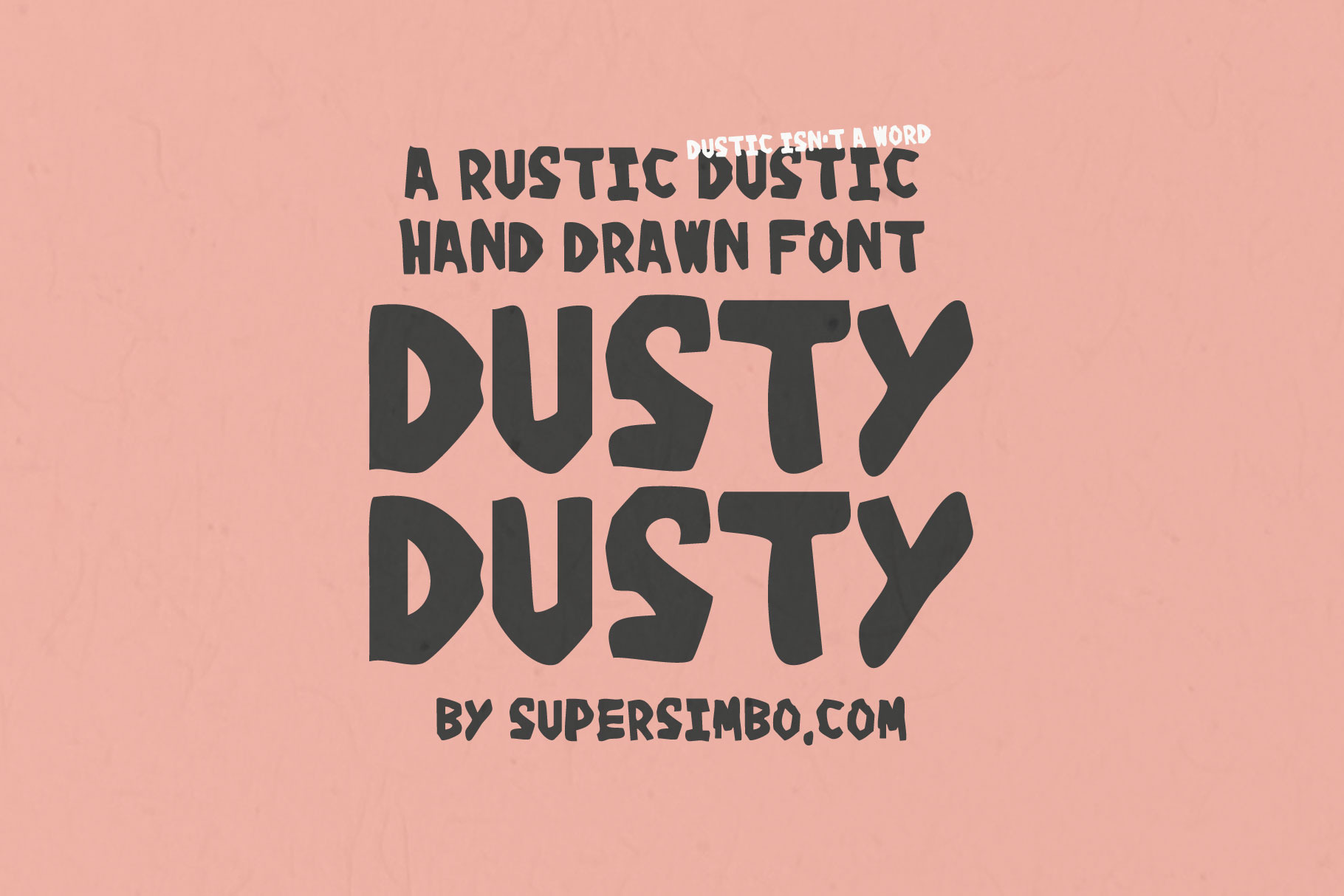
Dusty Dusty | Hand Drawn font
Dusty Dusty is a rustic dustic (not a word) hand drawn font and another rough around the edges creation by supersimbo.com
Dusty Dusty seemed like a good idea for a font name... I think you should use it for a fun project! It's bold and playful and quirlky... a bit. You get uppercase letters, numbers and a few basic glyphs. It's a vibe.